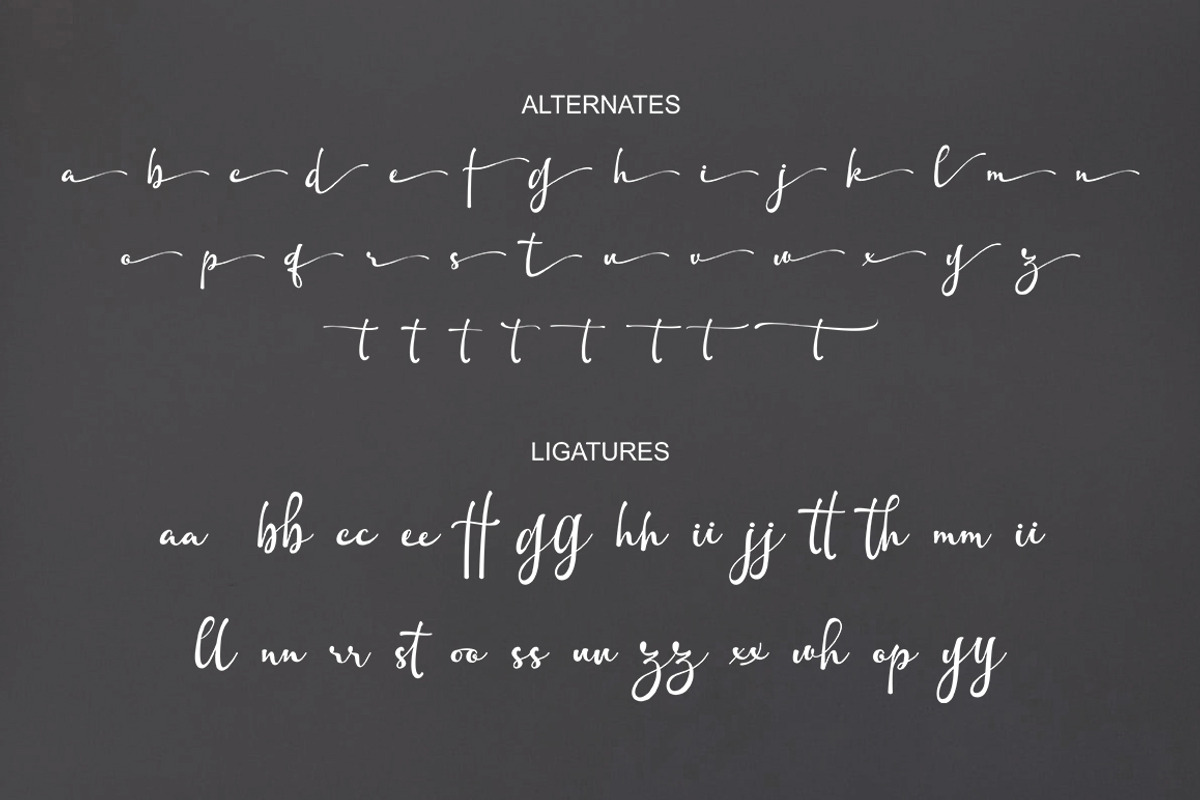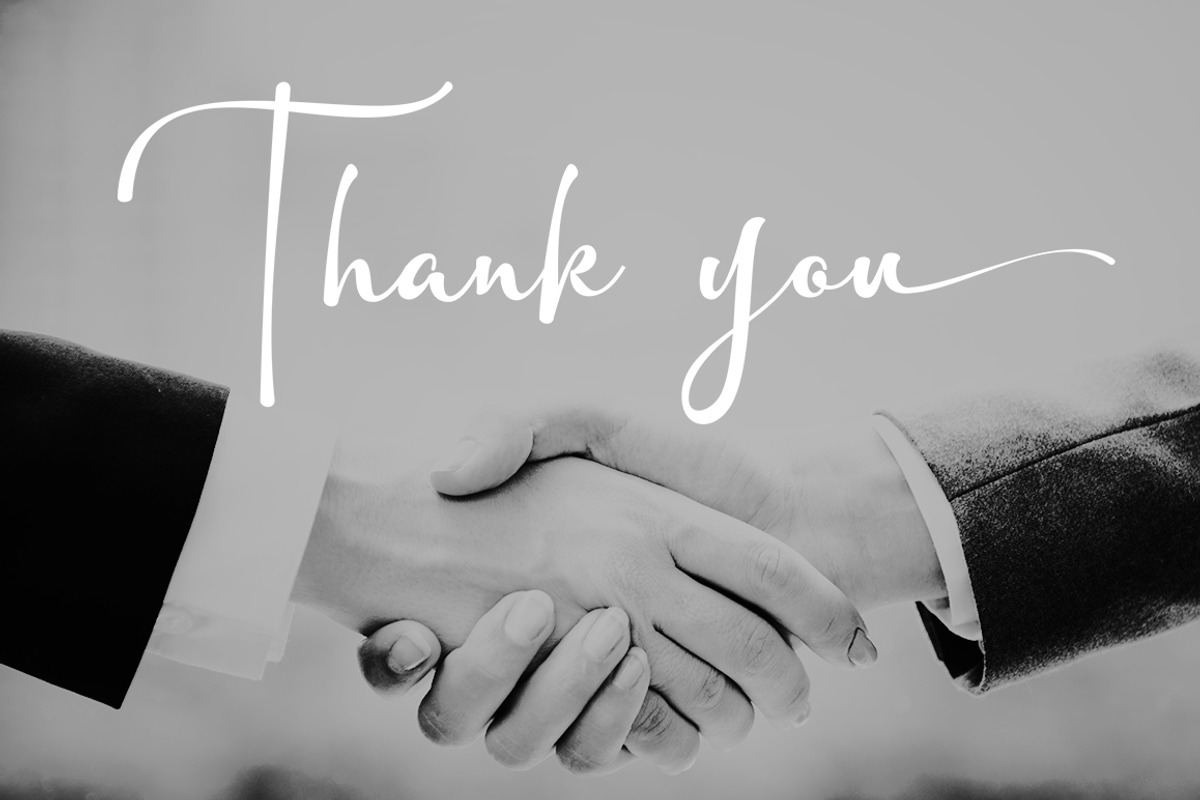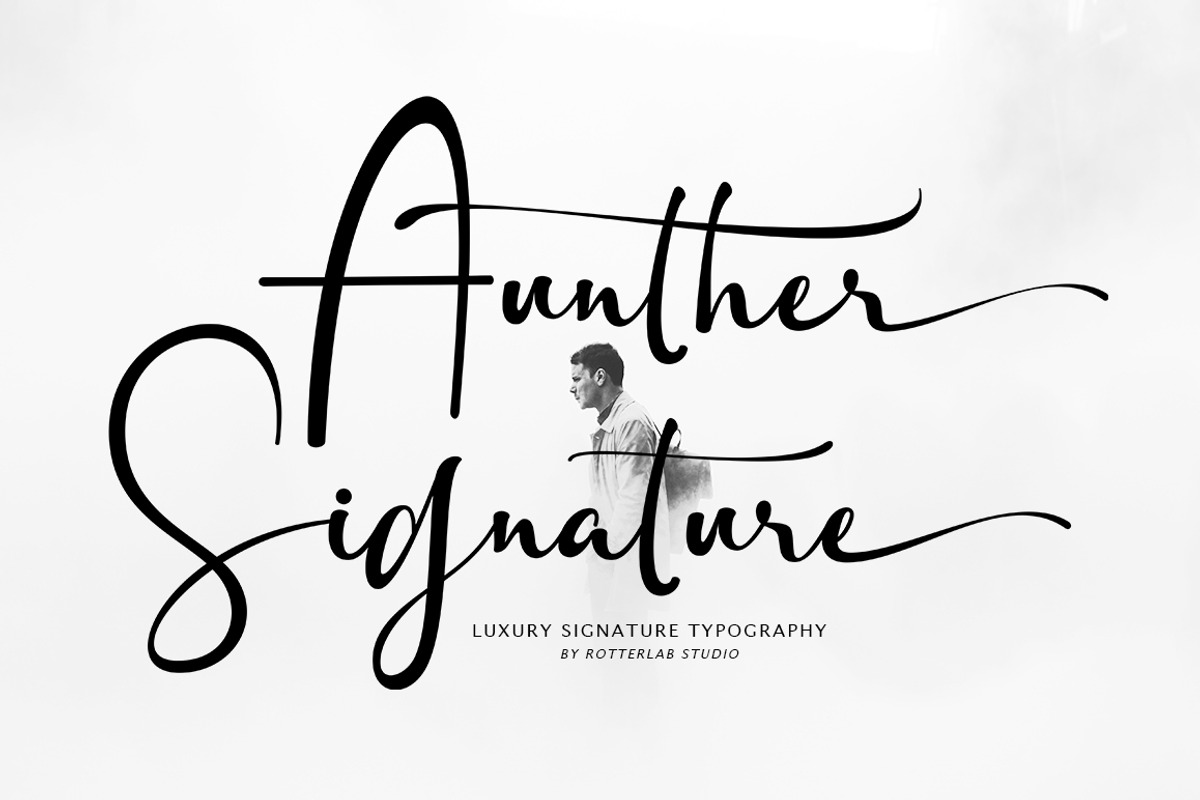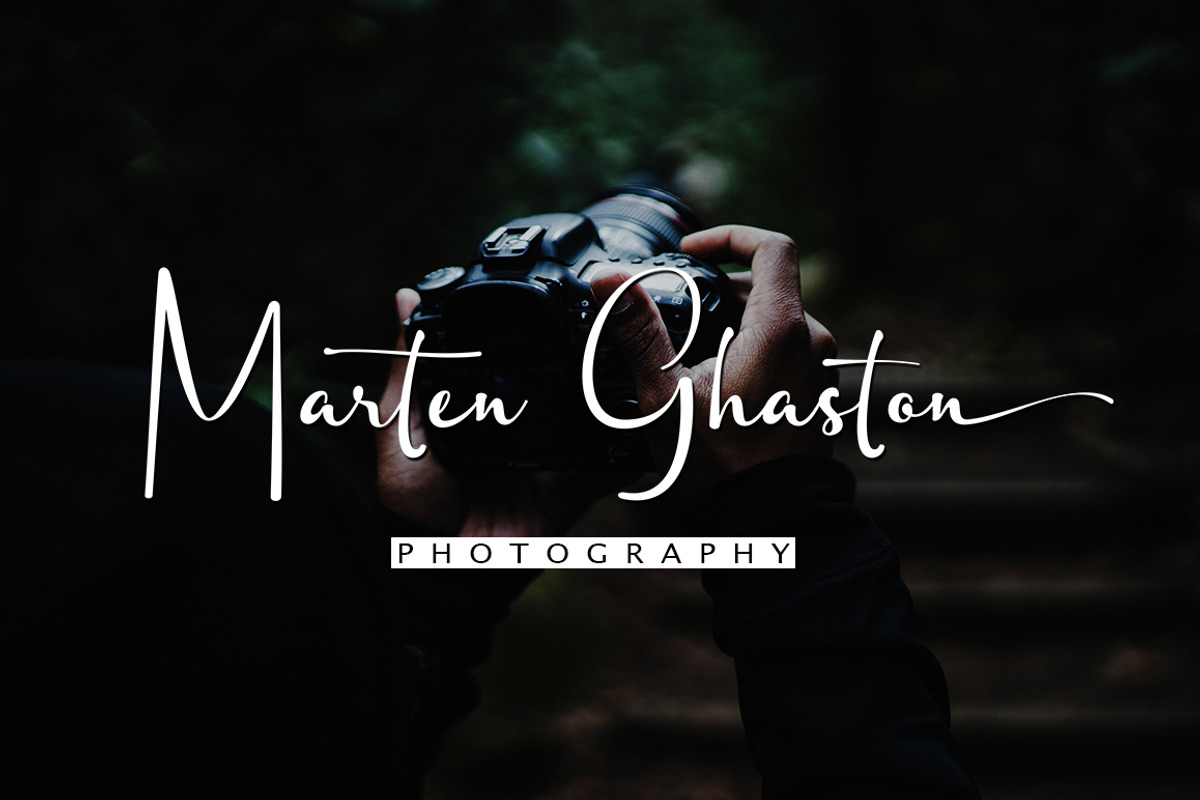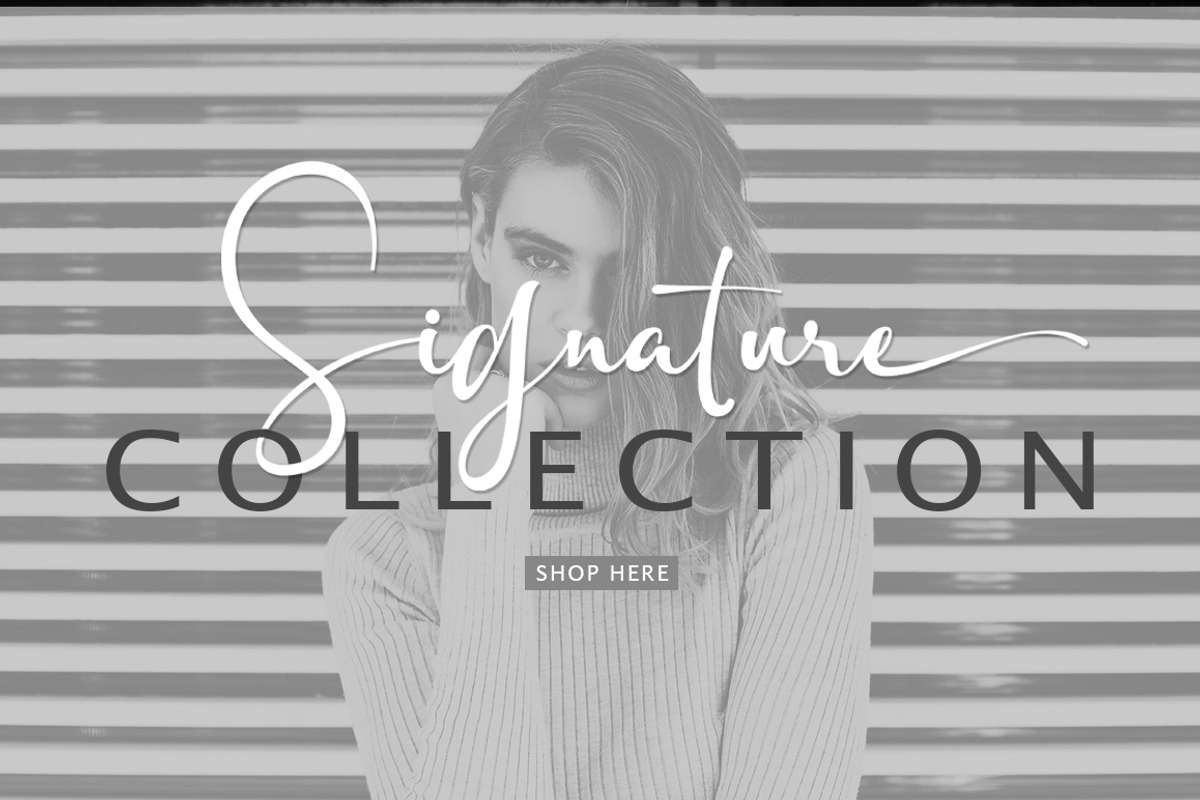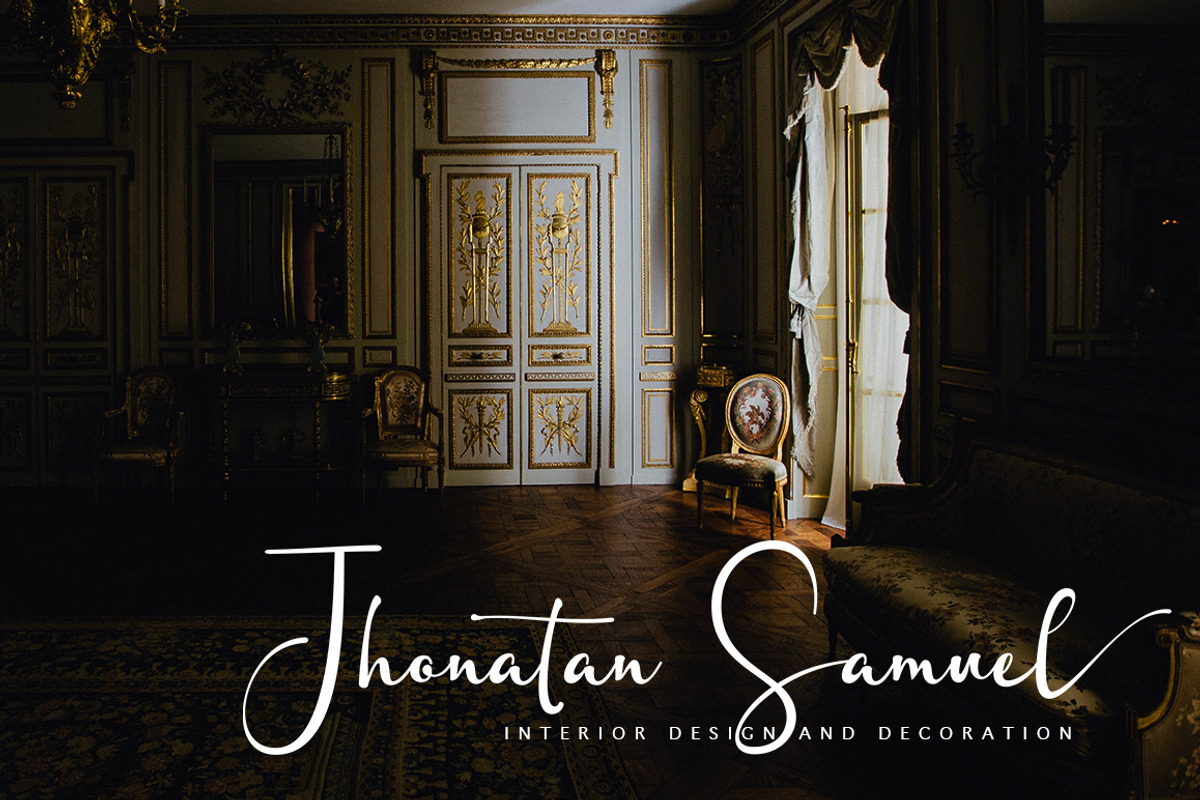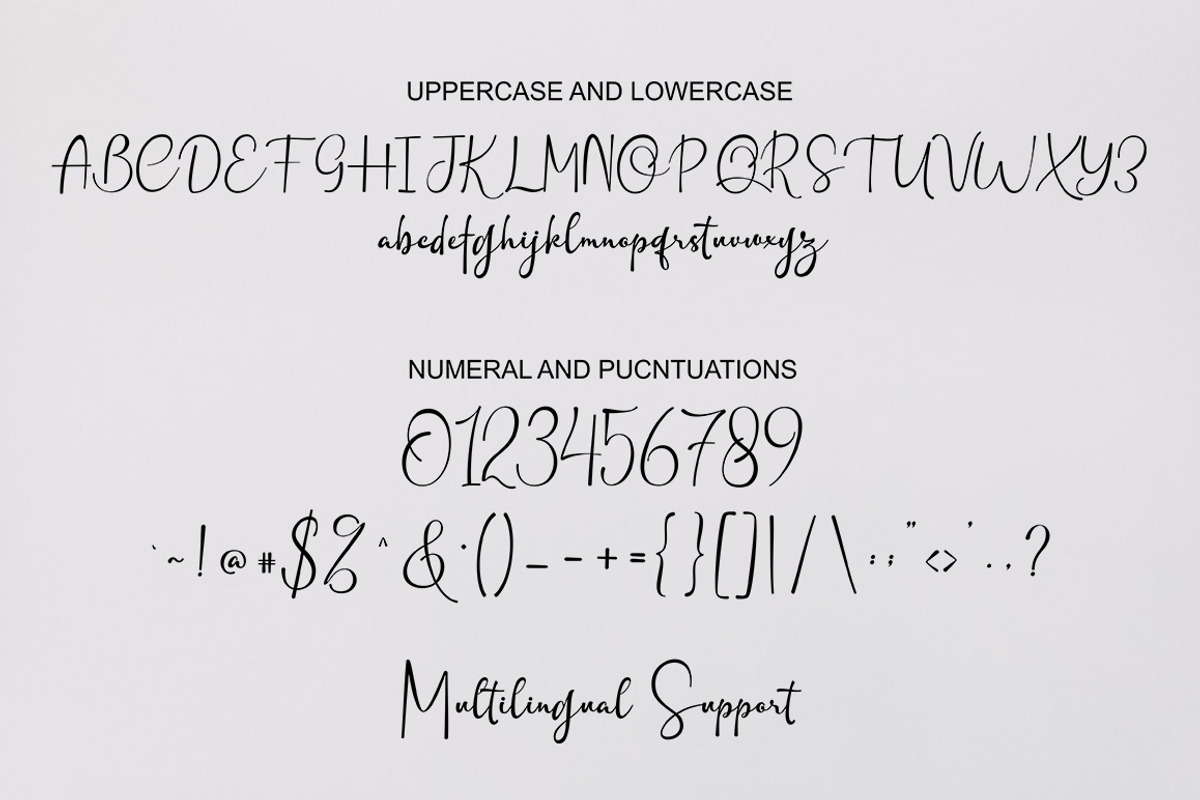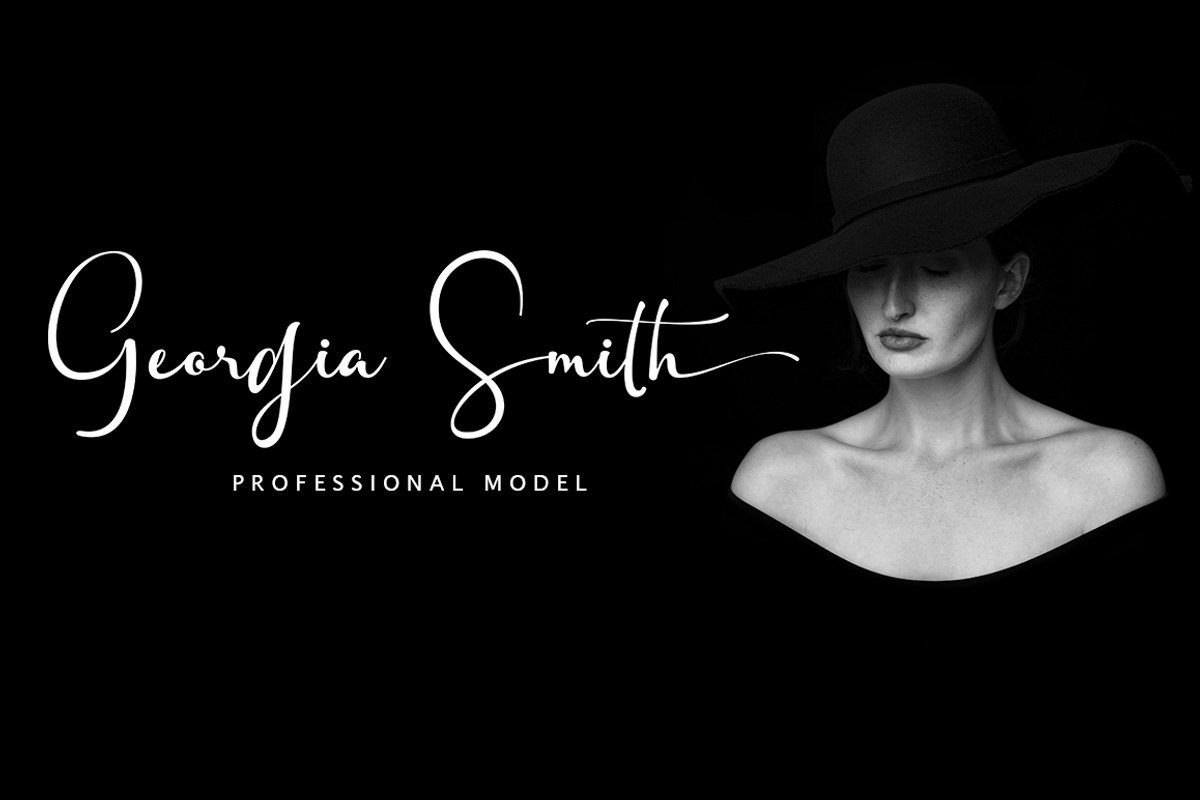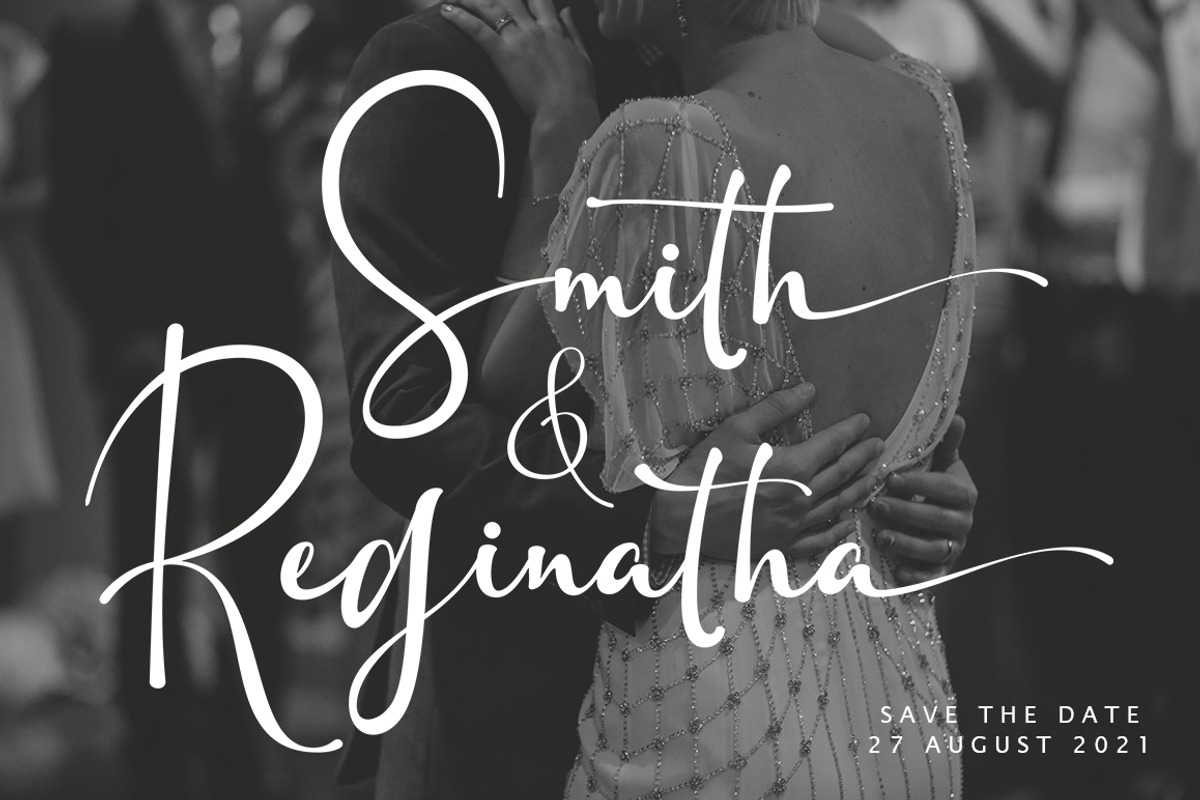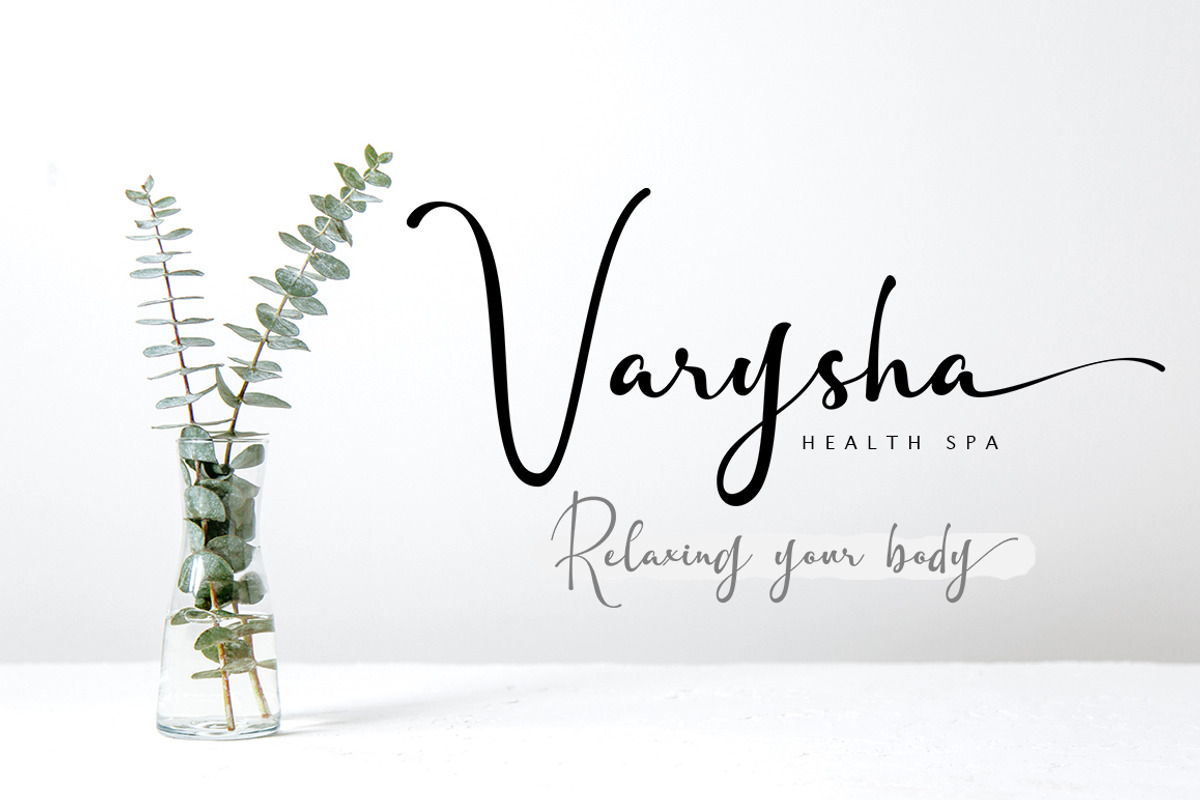
Aunther Signature
Introducing the newest product, the Aunther Signature font, this font is perfect for creating signature logos and watermarks for photography studios or photography logos, best for initial logos or brand signatures. Made with elegant, professional and unique taste,
You can try it first by typing what you want below made simple but has a very luxurious feel, this font has a lowercase alternative that is very similar to handwriting using a pen making it suitable for signatures, logos, watermarks and more. again. can create custom personalized signatures, create custom logos, so this awesome signature is for all.